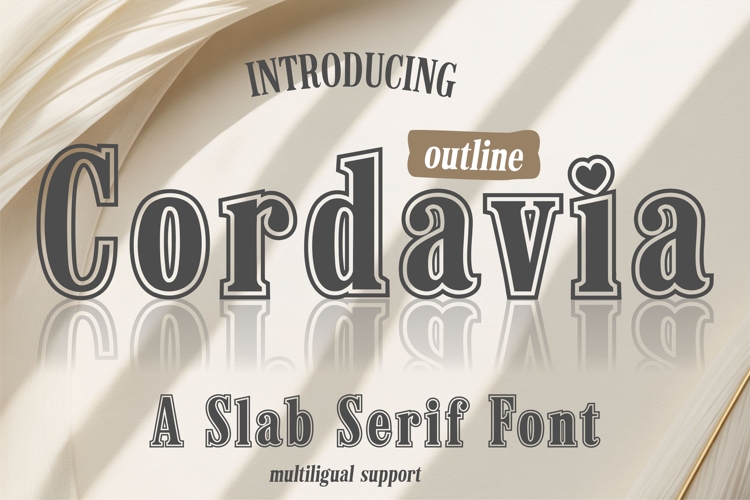
Cordavia Outline Font Playful Slab Serif with Heart
Cordavia Outline is a charming and expressive slab serif font with a unique outline style and playful character details. Perfect for creative designs, the Cordavia Outline font brings personality and warmth to every word—especially with its sweet heart-shaped glyphs and clean outlines.
Whether you're designing T-shirts, mugs, posters, cards, or branding elements, Cordavia Outline adds a bold yet elegant look that feels both classic and modern. With multilingual support and a full set of uppercase, lowercase, numbers, and symbols, this font is versatile for both print and digital projects.